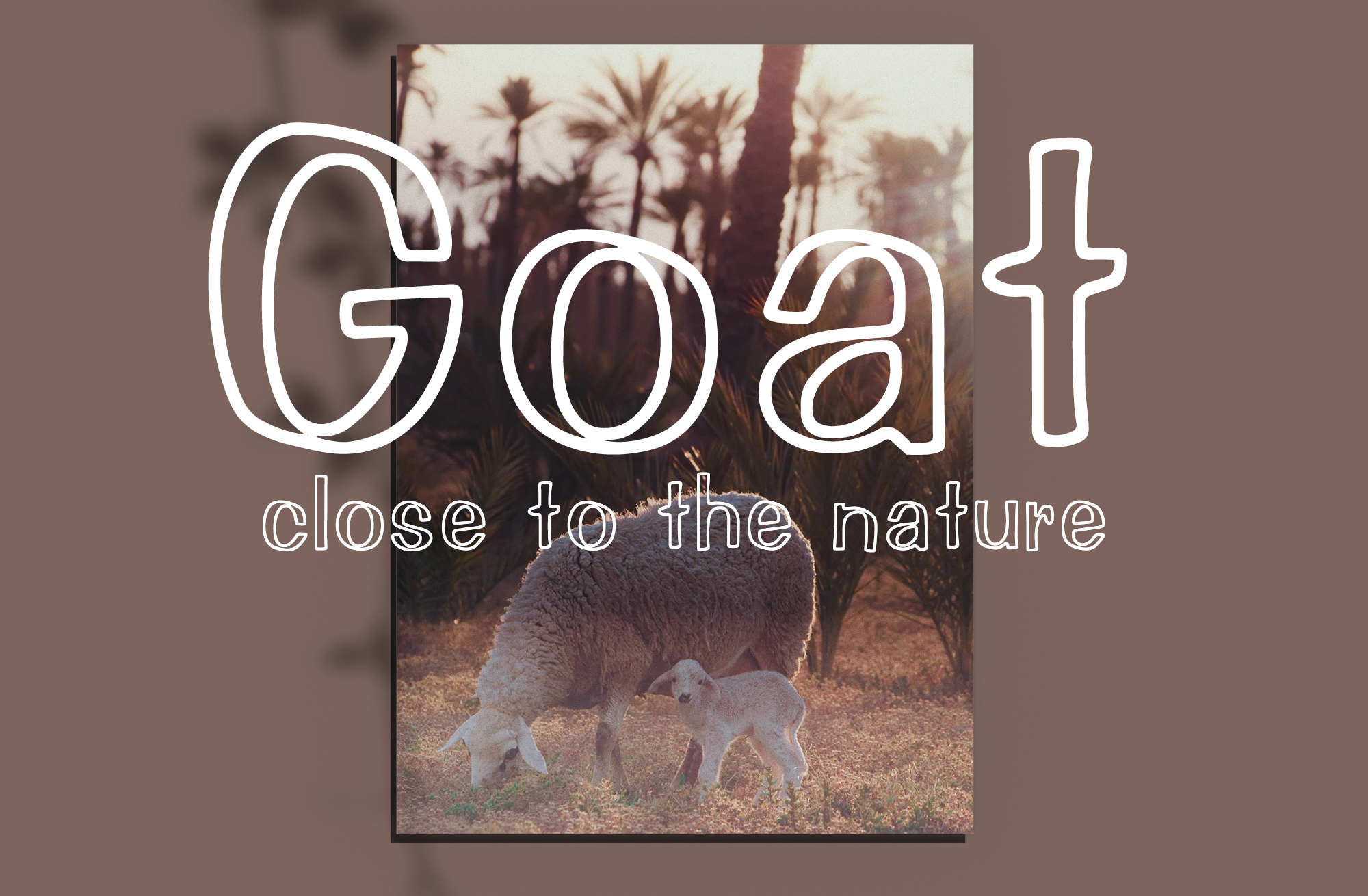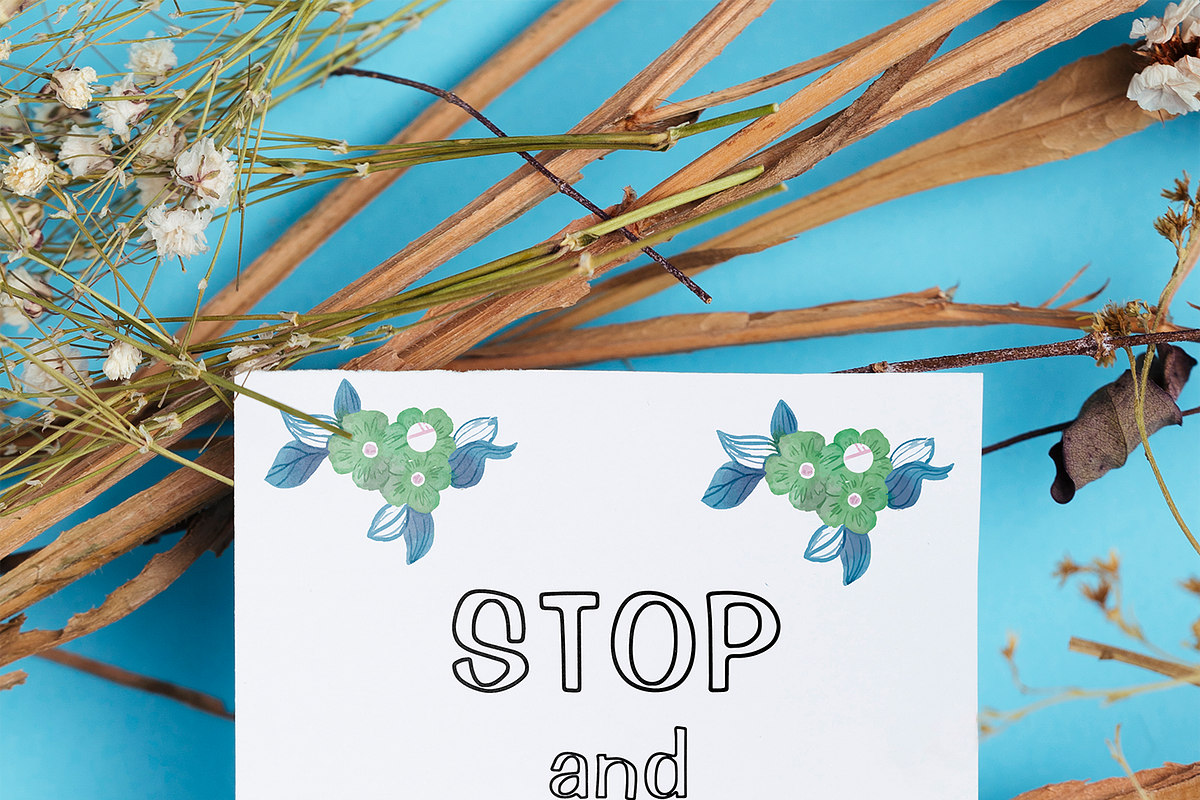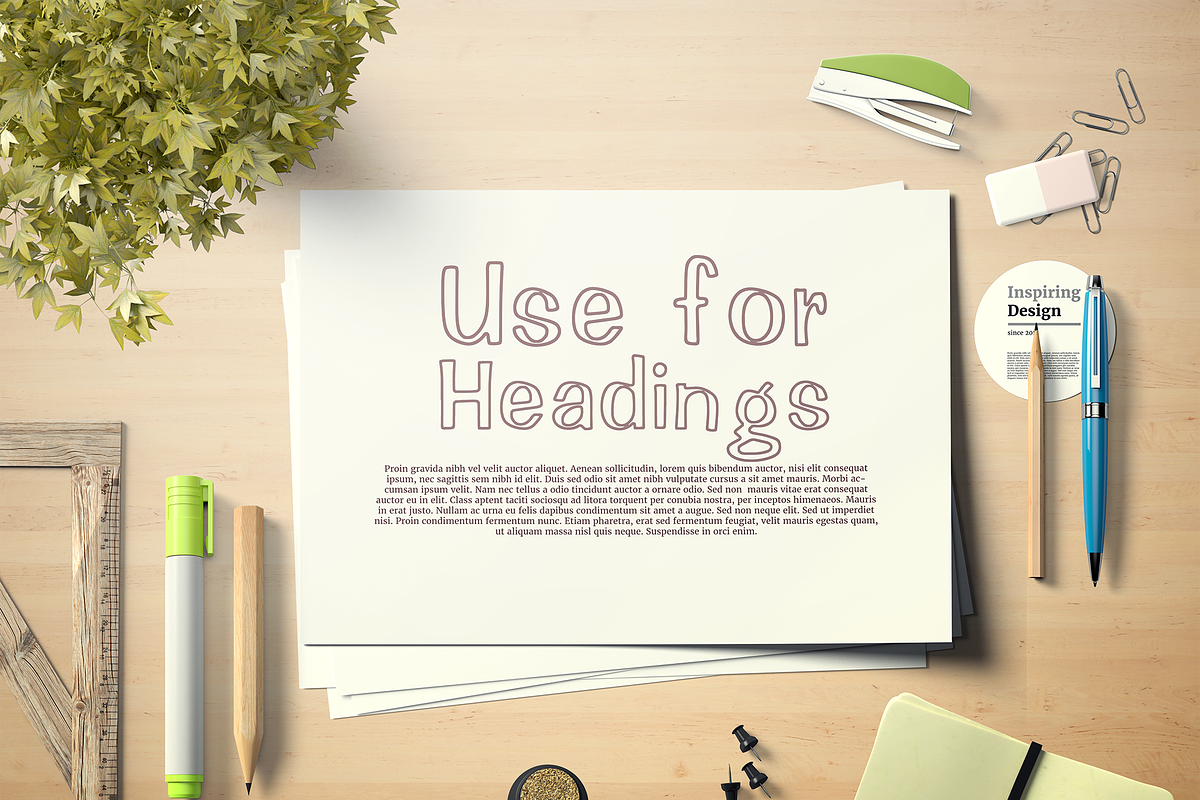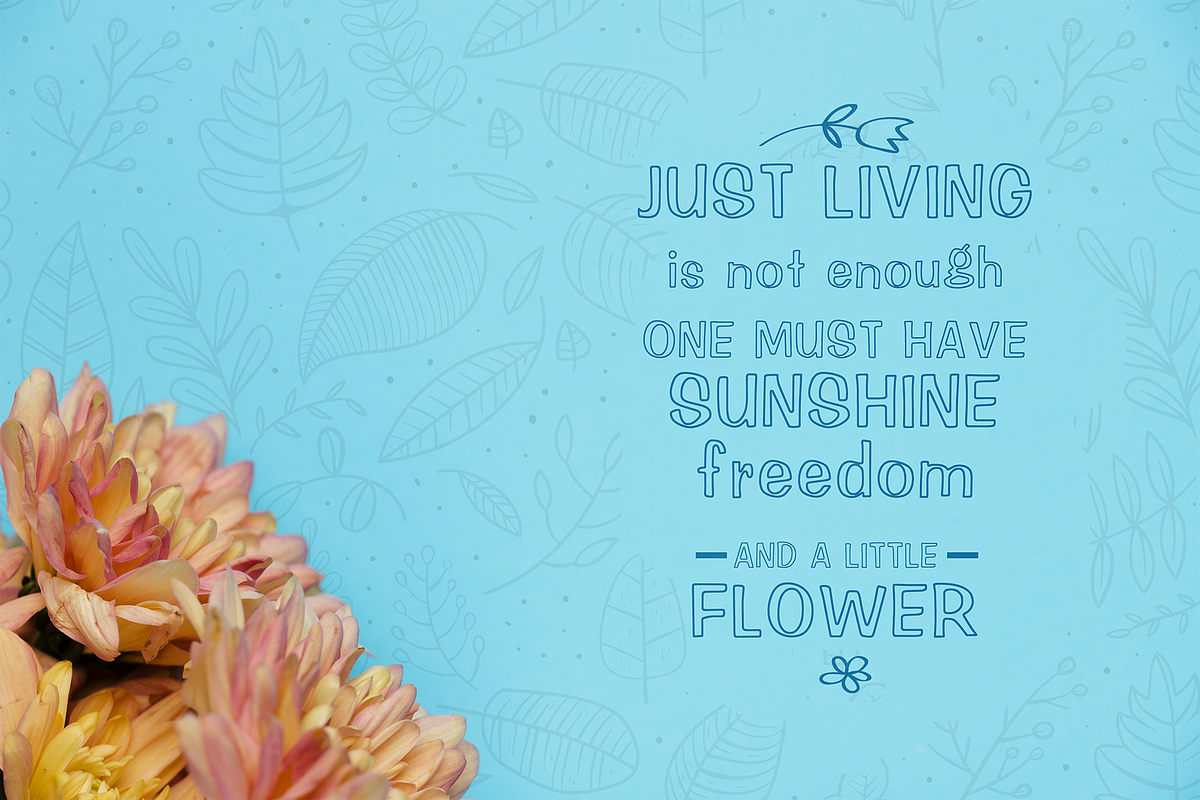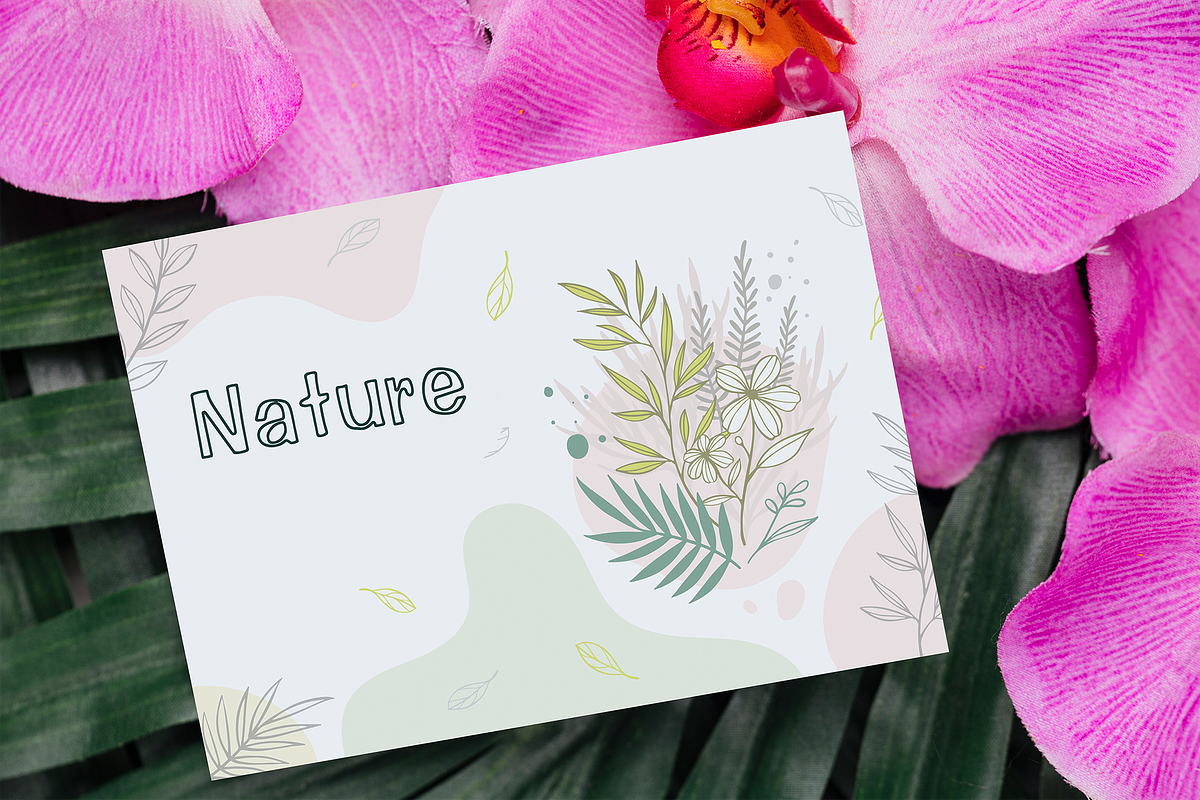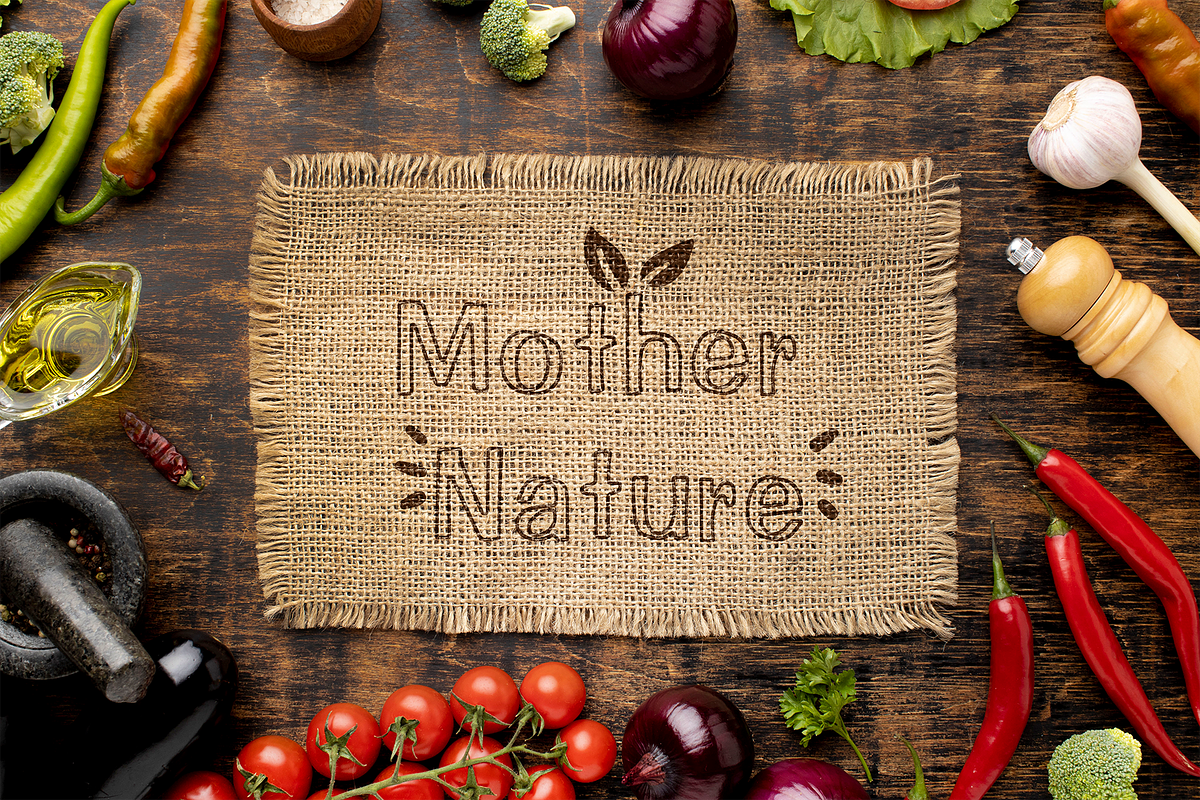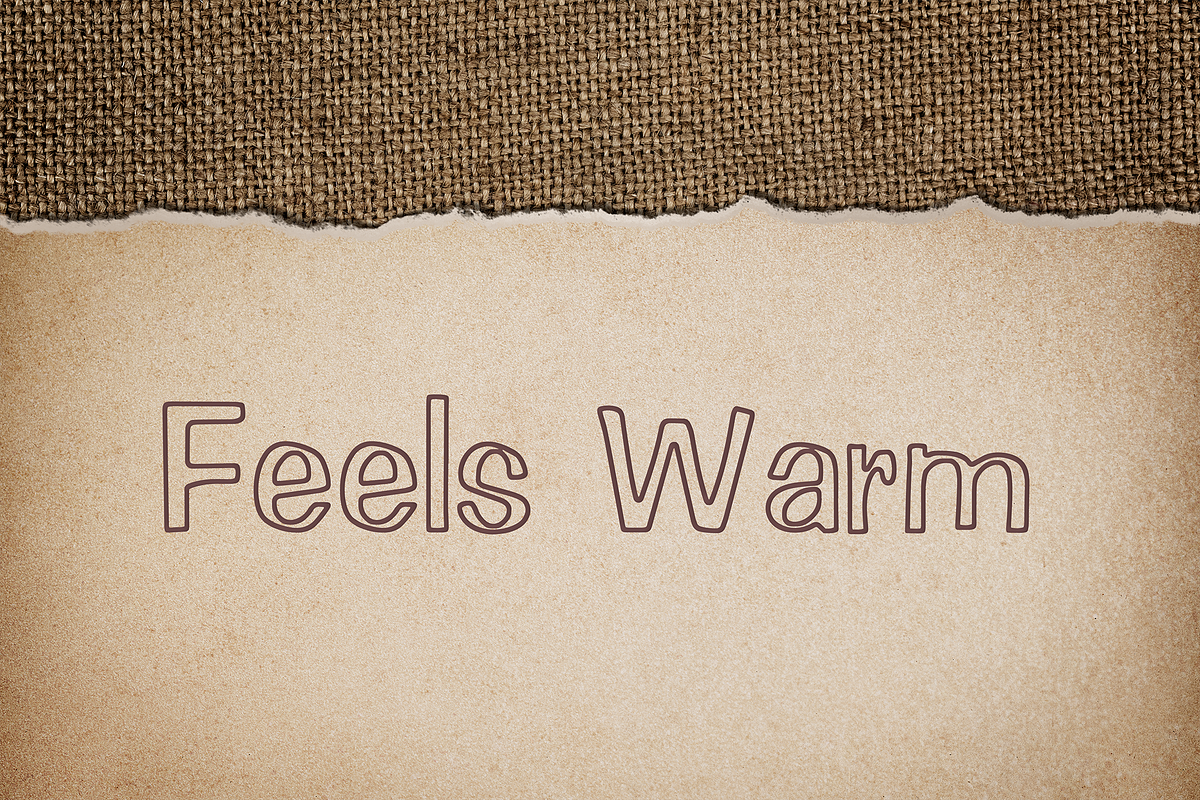
The Goat font comes with the uppercase and lowercase letters, numerals and Punctuations. You will also get the ultra HD version of the goat image which you can see in the screenshot (use as a wallpaper or anything).